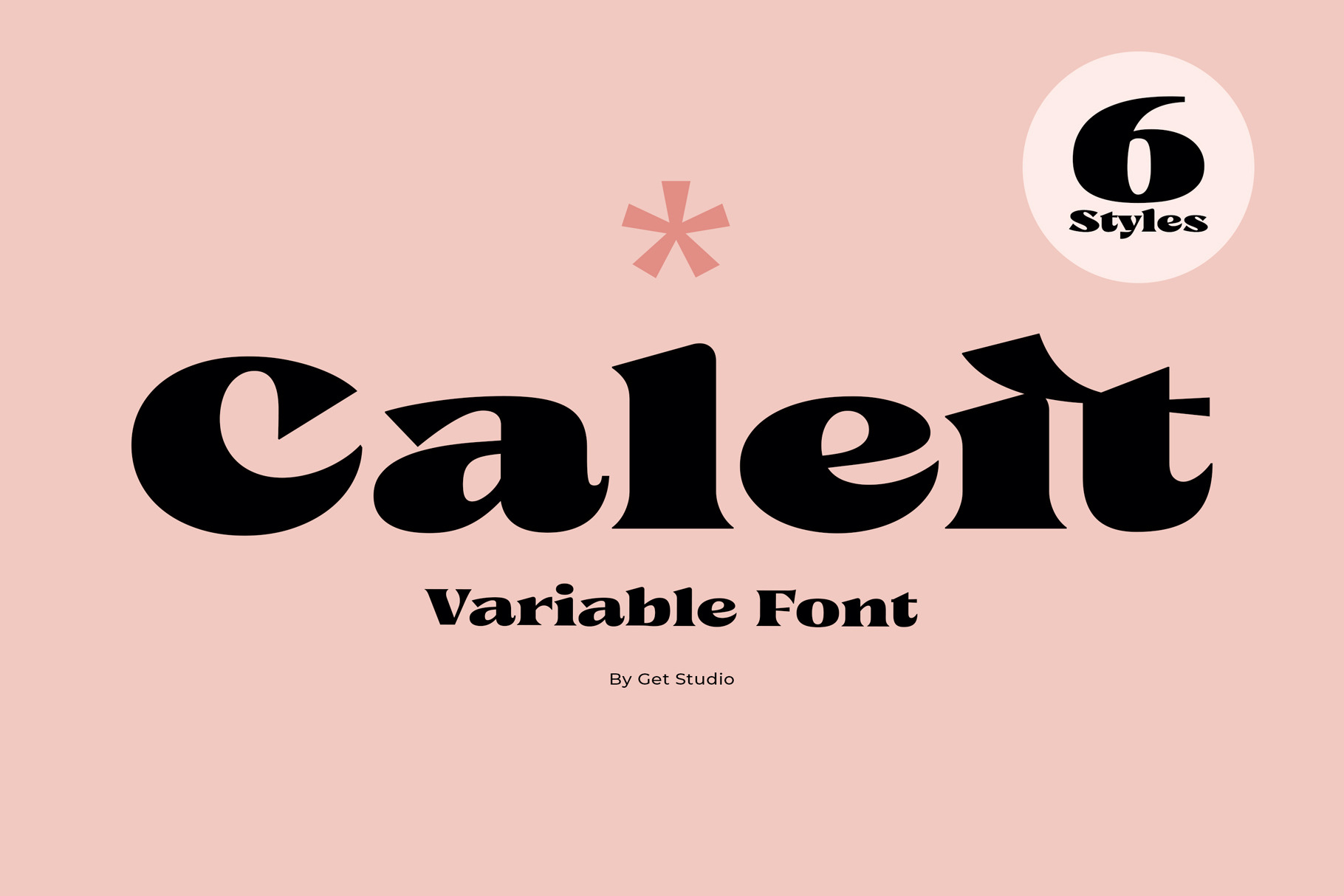
Caleit - Variable Font
The Caleit Variable Font is a versatile typeface that comes in six styles, making it perfect for a wide range of design projects.
With its elegant and modern aesthetic, this font offers flexibility and creativity, allowing you to express your unique vision across different media and platforms.